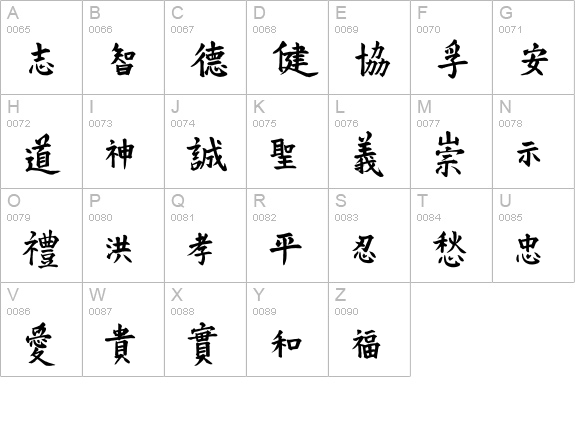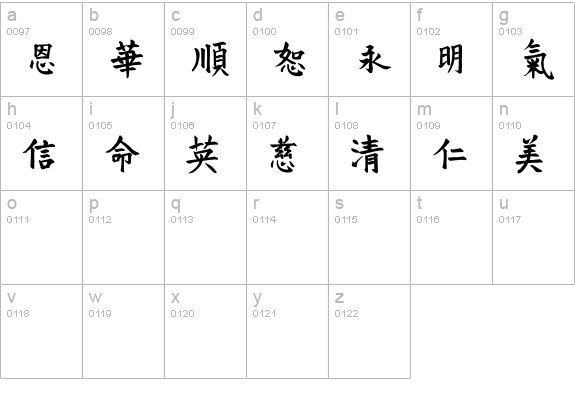
VTMeiOrnaments Font Details
VTMeiOrnaments is a stunningly beautiful decorative font that adds a touch of elegance and sophistication to any design project. With its intricate and delicate details, this font is sure to make a lasting impression. Whether you're designing invitations, logos, or other creative works, VTMeiOrnaments will effortlessly transform your creations into works of art. What makes VTMeiOrnaments even more impressive is the fact that it is available for free. Yes, you read that right - this incredible font can be downloaded at absolutely no cost! Thanks to FontsMarket.com, you can easily get your hands on this remarkable font and enhance your design projects without breaking the bank. Don't miss out on the opportunity to elevate your designs with VTMeiOrnaments. Download it today for free at FontsMarket.com and experience the endless possibilities this font has to offer. Whether you're a professional designer or simply someone looking to add a touch of flair to their personal projects, VTMeiOrnaments is the perfect choice. So go ahead, unleash your creativity and let this font take your designs to new heights.